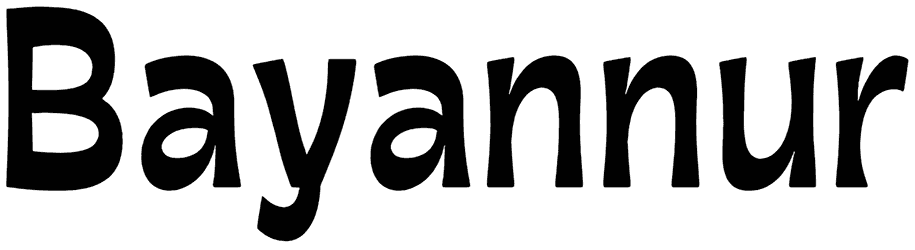
MO Bayannur Font
MO Bayannur is a sans-serif font inspired by the Arabic style. It has a bold and simple texture that makes it much more readable. You can use this font to convey a traditional Islamic feel to your design. Therefore, it’s…
MO Bayannur is a sans-serif font inspired by the Arabic style. It has a bold and simple texture that makes it much more readable. You can use this font to convey a traditional Islamic feel to your design. Therefore, it’s a great choice for posters, social media, movies and books, banners, and Ramadan projects.
Bayannur is a typeface inspired by Arabic Calligraphy in Chinese Tradition. This font has extensive Latin script support, as well as Cyrillic and Arabic. The glyphs in this font specifically support Uyghur script typing.